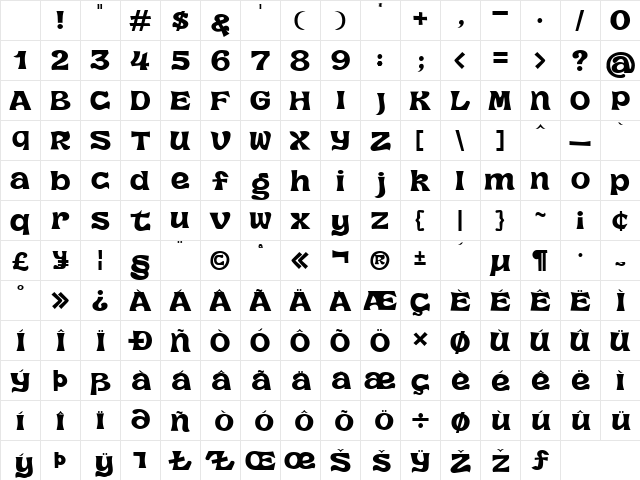
Complete Magic Tribes Regular glyph index. Displaying only characters natively supported by Magic Tribes Regular font.
Magic Tribes is a composed and adaptable typeface that performs quietly and consistently across a wide range of design contexts.